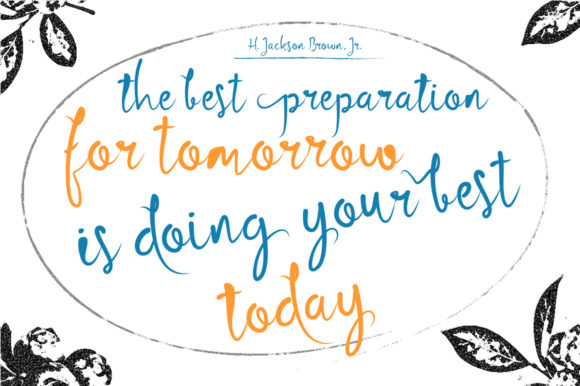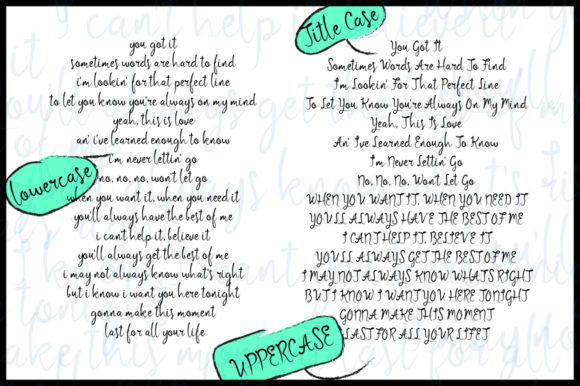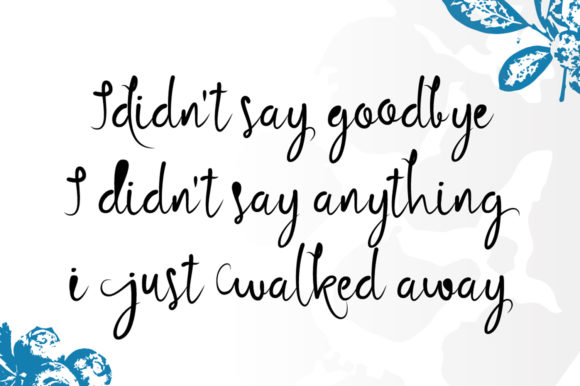
Blueberry Font
About Blueberry Font
Blueberry is an elegant and dainty handwritten font that features sweet and delicate swashes. This original look will appeal to a wide range of crafty ideas, from letterheads and titles, to stationery. Blueberry is PUA encoded which means you can access all of the glyphs and swashes with ease!